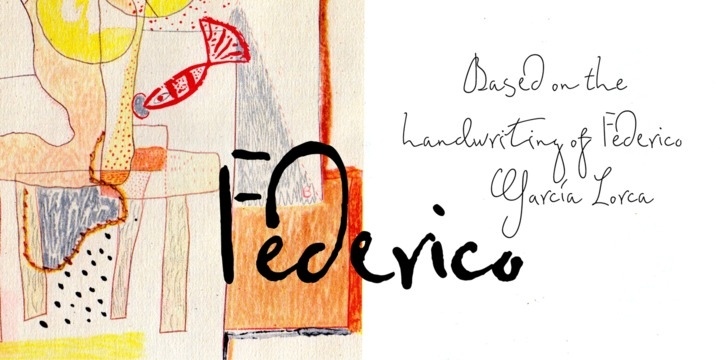
Federico Font
Federico Font is perfect for Italian restaurant branding, Mediterranean cuisine packaging, artisanal food products, wine labels, cultural heritage projects, and European luxury goods marketing. This sophisticated typeface excels in travel publications, culinary magazines, fine dining establishments, and any application where Old World charm and Mediterranean elegance create authentic cultural connections.
What makes Federico Font so exciting is its masterful ability to capture the essence of Italian Renaissance artistry and craftsmanship through elegant typographic design. The font features graceful curves, refined proportions, and subtle flourishes that evoke the timeless beauty of Italian calligraphy and architectural lettering. Its sophisticated character brings authentic European heritage to modern design while maintaining contemporary functionality and readability.
Federico Font comes in a distinguished family including Light, Regular, Medium, Bold, and Heavy weights. Each style features complete uppercase and lowercase character sets, European accented characters, elegant numerals, and classical punctuation marks. The font family also includes stylistic alternates, decorative ligatures, and ornamental elements that allow designers to create truly authentic Mediterranean-inspired compositions.
This enchanting typeface transforms ordinary communications into celebrations of European culture and refinement. Federico Font Free Download offers designers and cultural brands an opportunity to infuse their projects with genuine Italian sophistication and Old World elegance. Whether you're developing brand identities for Mediterranean restaurants, creating packaging for artisanal products, or designing materials for cultural organizations, this font delivers authentic European charm with professional polish.
The font's cultural richness makes it particularly effective for culinary businesses, wine producers, travel companies, and luxury lifestyle brands with European heritage. Its excellent legibility ensures that Federico Font maintains clarity across all applications while preserving its distinctive Italian character. The font's ability to evoke warmth, tradition, and cultural authenticity makes it an invaluable asset for any project seeking to establish genuine connections through the timeless appeal of Mediterranean design and heritage.